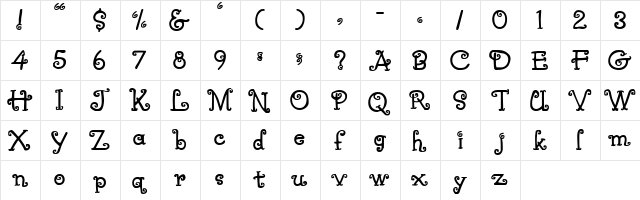
AnniesCurlyQ Regular Font Preview
AnniesCurlyQ Regular
Design Context for AnniesCurlyQ Typeface
AnniesCurlyQ is a composed and adaptable typeface that performs quietly and consistently across a wide range of design contexts.
Pro Tip: Use AnniesCurlyQ in both headline and body roles to test its range before committing to a single application.